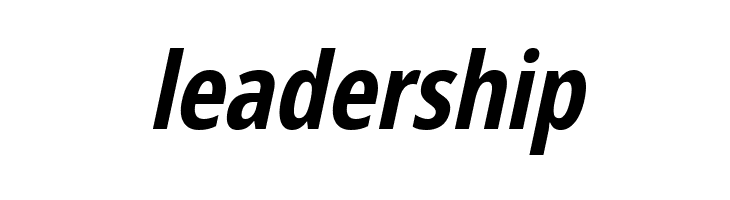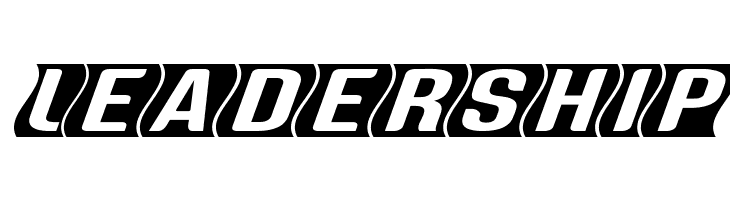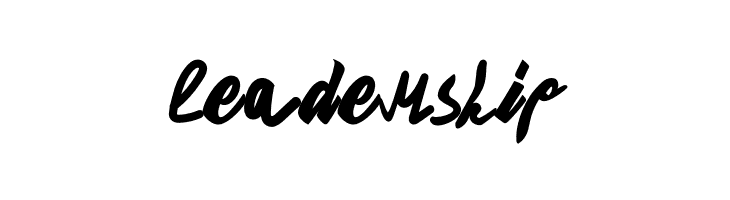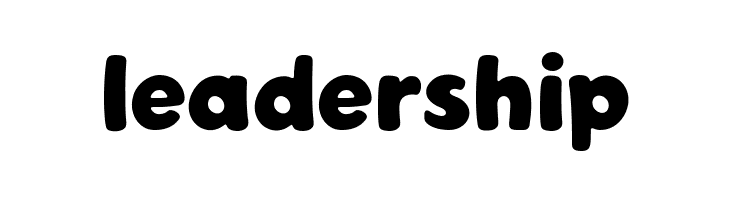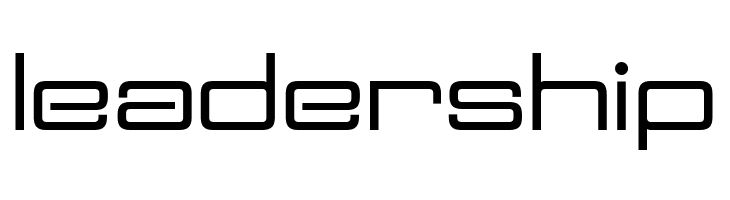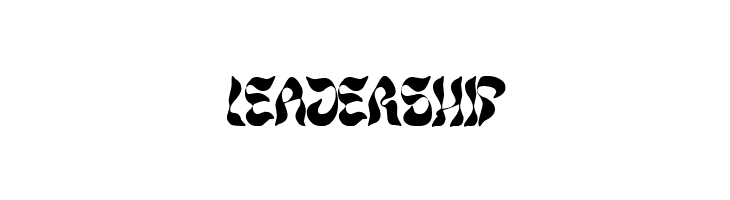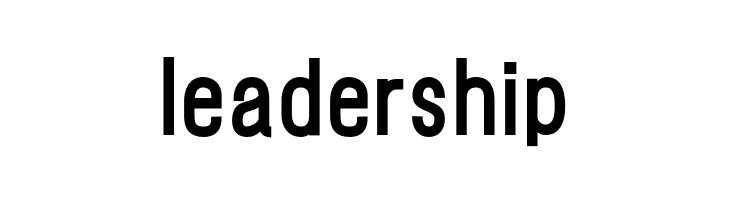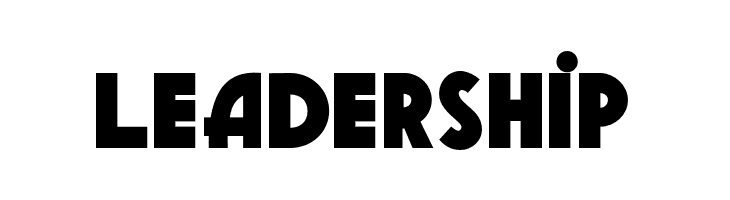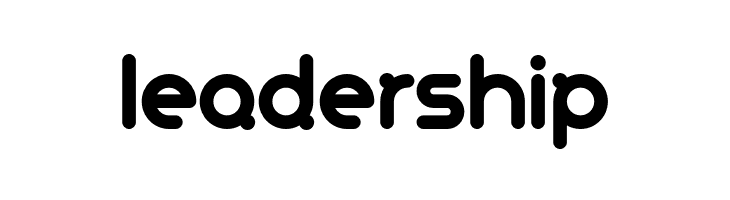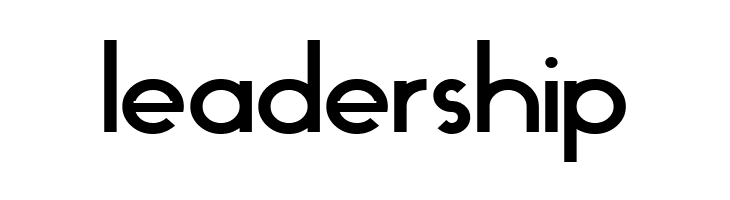
• gembira Bold
• gembira Bold Italic
A bold, italic font with a modern and dynamic style.
• Gemcut Bold
A bold, geometric font with sharp angles and a faceted, gemstone-like appearance.
• Gemcut Bold Italic
A bold, italicized font with geometric, angular design elements.
• Gemunu Libre Bold
• GemunuLibre Bold
A bold, modern sans-serif font with clean lines and geometric shapes.
• GENERATION Bold
A bold, geometric font with a 3D effect and consistent rounded edges.
• GENERATION Bold Italic
A bold, italicized font with a strong, dynamic presence and shadow effect.
• Generica Bold
A bold, geometric font with strong lines and a modern aesthetic.
• Generica Bold
A bold, geometric font with a modern and impactful style.
• Genghis Khan framed Med Obliq
A bold, oblique font with a dynamic, framed style ideal for impactful designs.
• Genji Bold
• Genji Thin
A sleek, modern font with geometric design and thin strokes.
• Gennaro Palmieri Bold Black Medium
• Gensho5 Bold
A bold, modern sans-serif font with clean lines and geometric structure.
• Genta Bold
A bold, dynamic script font with fluid, cursive strokes.
• Gentium Basic Bold
A bold serif font with classic elegance and moderate contrast.
• Gentium Basic Bold Italic
A bold, italic serif font with moderate contrast and elegant style.
• Gentium Book Basic Bold
A bold, classic serif font with moderate contrast and pronounced serifs.
• Gentium Book Basic Bold Italic
A bold, italic serif font with classic elegance and moderate contrast.
• Geo Bold
• Geoffrey Bold
• GFS Neohellenic Bold Italic